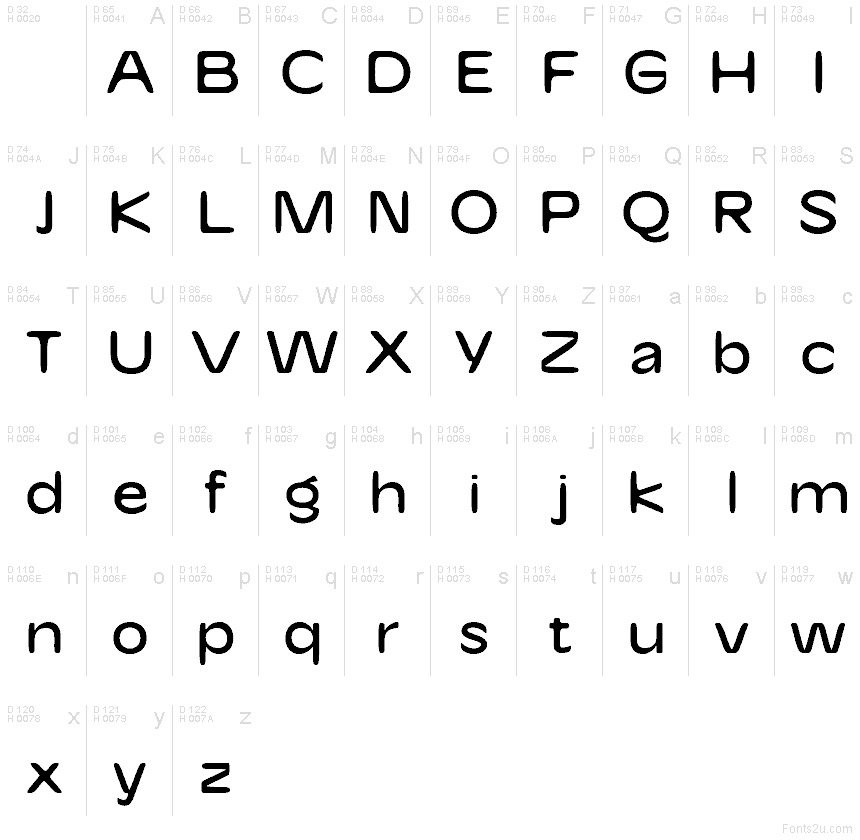
CSBrianDrawn-Regular Demo
CS Brian Drawn font by Craft Supply Co. is a rounded sans serif font with a contemporary design. Round with smooth curves and sharp edges, the typeface connects a modern look with an elegant feel for professional results every time. Meeting the eye in harmony, its letters will undoubtedly build gracious headlines and typography.